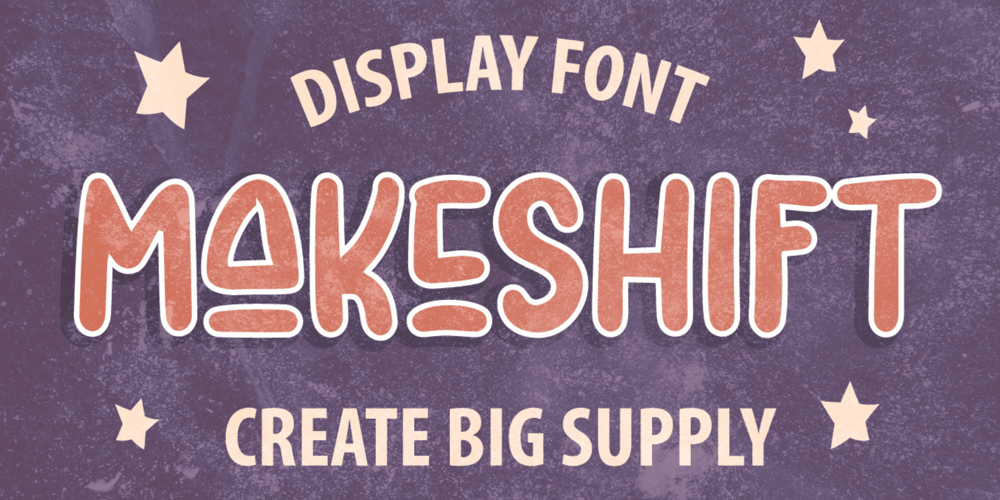
Makeshift Font Family was designed by Irpan Maulana and published by Create Big Supply. Makeshift contains 1 styles and family package options. Elevate your designs with the captivating allure of Makeshift Font. This extraordinary display typeface brings a bold and fun look, infusing your creations with a powerful and distinctive touch. Perfect for designers seeking originality, Makeshift Font is poised to make a lasting impression on logos, headlines, posters, product packaging, and more. Its versatility shines through in both digital and print mediums, making it a must-have for innovative projects.Makeshift Font boasts an extensive range of features, including uppercase and lowercase letters, numbers, punctuations, and comprehensive multilingual support. With PUA encoding, accessing the wide array of glyphs and swashes becomes effortless, empowering you to effortlessly customize your designs.